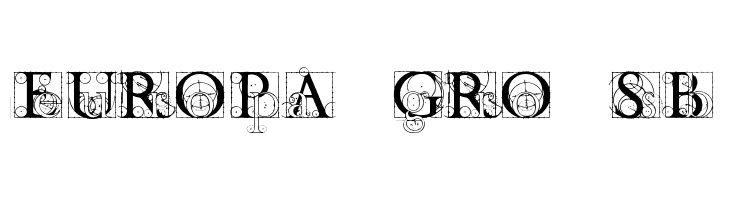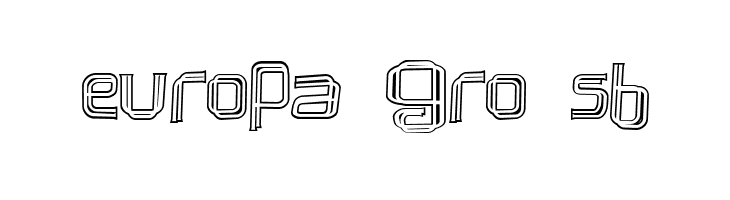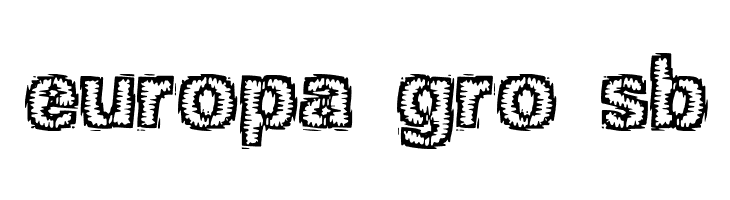
( Fonts by Rich Gast - www.greywolfwebworks.com OFF SITE )
A bold, geometric font with parallel lines and a retro-futuristic style.
An ornate and decorative font with intricate swirls and flourishes.
A bold, layered font with a three-dimensional, futuristic design.
( Fonts by Astigmatic One Eye Typographic Institute - Brian J. Bonislawsky - astigmatic.com )
A bold, geometric font with a futuristic, grid-like design.
A bold, italic, inline font with sharp serifs and dynamic style.
A decorative font with circular, geometric patterns and rounded enclosures.
A bold, decorative font with rounded edges and intricate geometric patterns.
An ornate and decorative font with intricate detailing and vintage flair.
An ornate, arabesque-style font with intricate decorative patterns.
A modern, textured font with diagonal line patterns for a dynamic look.
An ornate and decorative font with high contrast and intricate design.
A decorative font with geometric, circular designs and intricate patterns.
A bold, geometric font with a structured, architectural style.
An ornate, decorative font with intricate swirls and embellishments.
A bold, decorative font with intricate floral embellishments.
An ornate and decorative font with intricate patterns and swirls.
( Fonts by www.lars-manenschijn.nl )
An artistic, hand-drawn font with intricate, sketch-like details.
( Fonts by Ossok )
A detailed, elegant font with a technical and architectural design.
An ornate and decorative font with Victorian elegance.
An intricate and decorative font with gothic influences and modern flair.
A decorative and geometric font with intricate line work and a modern artistic style.
( Fonts by Kreative Korporation - www.kreativekorp.com )
A three-dimensional geometric font with a dynamic and intricate design.
A decorative, geometric font with parallel lines creating a modern, rhythmic look.